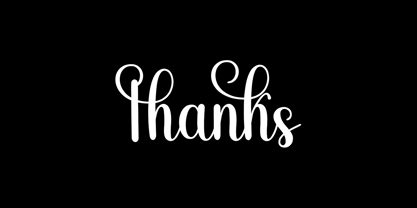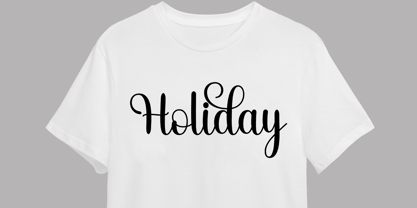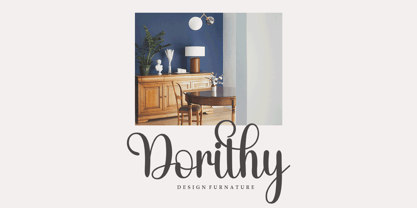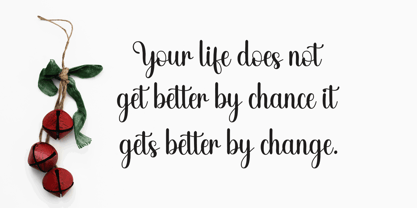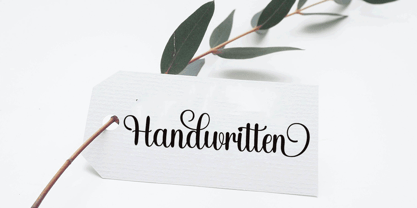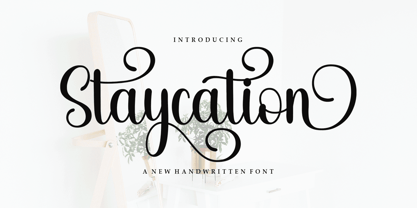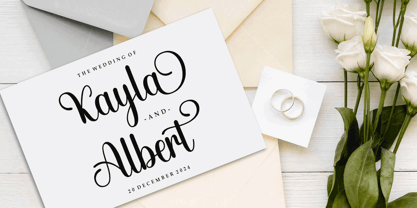
Staycation Script
por Good Design
A família de fontes Staycation Script foi desenhada por Agus Pujiyono e publicada pela Good Design. Staycation Script contém 1 estilos. Saiba mais sobre esta família
Staycation Script is a flowing handwritten font, described by an elegant touch, perfect for your favorite projects. Fall in love with its incredibly distinct and timeless style and use it to create spectacular designs!
Designers: Agus Pujiyono
Fundição: Good Design